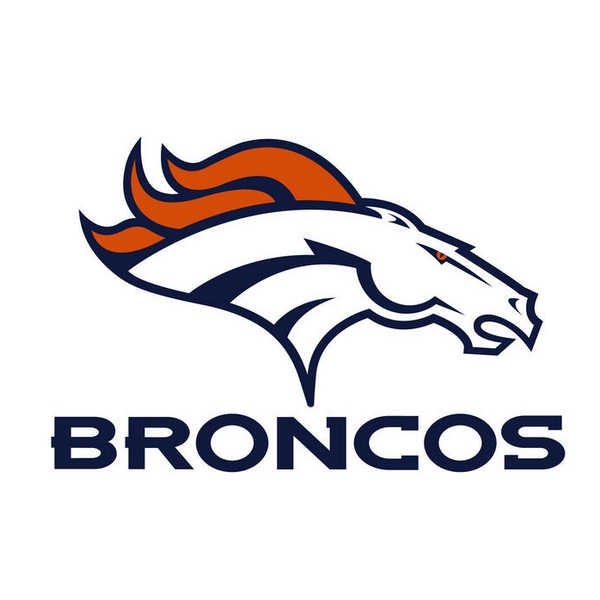
Denver Broncos Font
A free font called Denver Broncos Custom was developed to mimic the distinctive lettering of the team's logotype. It includes capital letters, numbers, and a selection of punctuation marks, and can be downloaded at no cost from the Fonts Used Section.